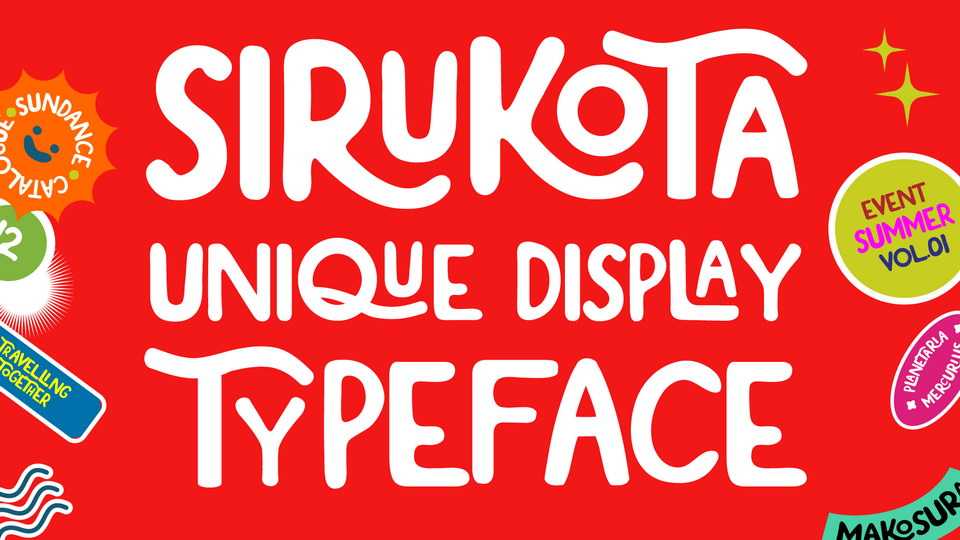
Download Sirukota font, a unique display typeface with a lively theme. With a couple of special characters, Sirukota will give your projects a heart and soul.
Designer: Jetsmax Studio